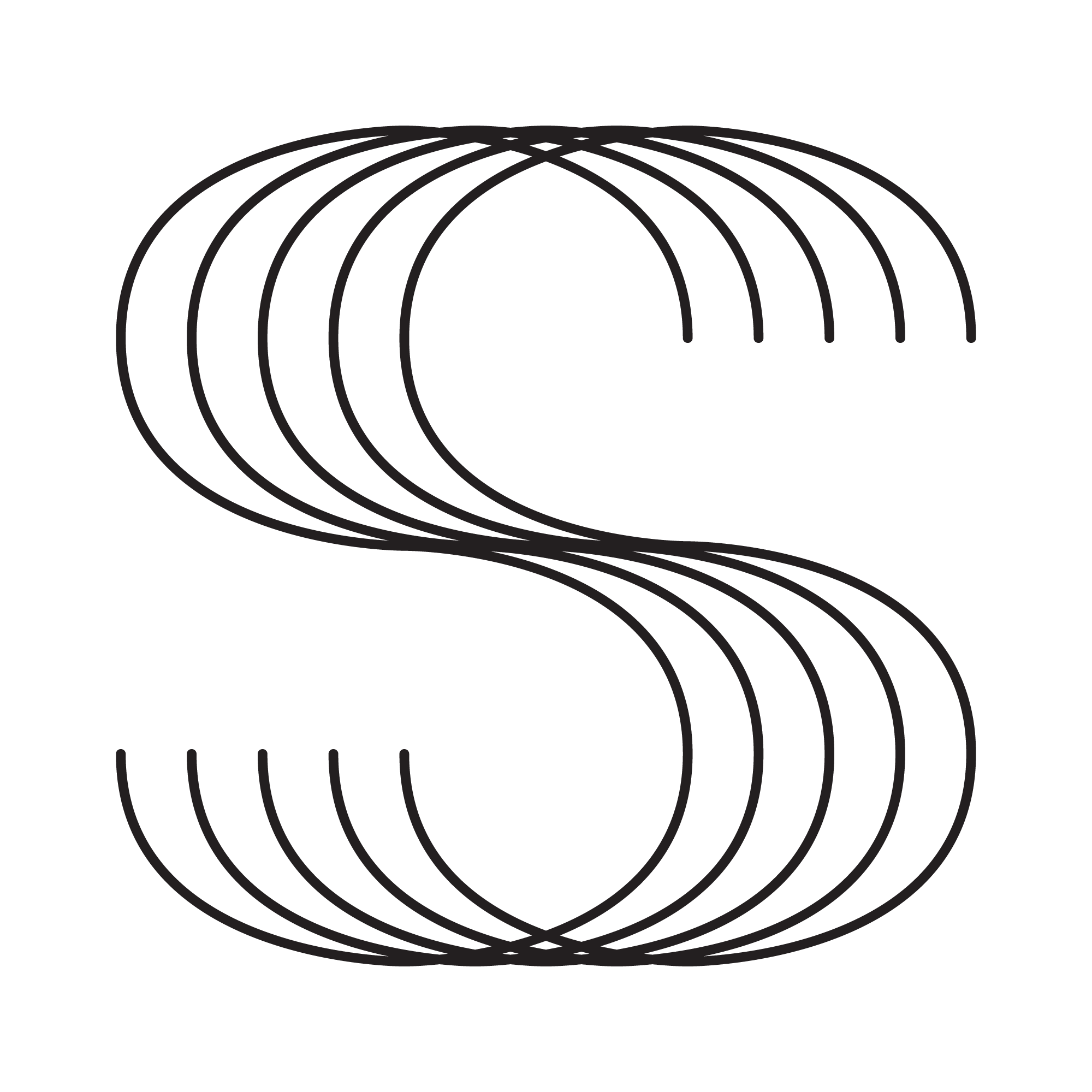
Sixteen for Fedrigoni 365
GA&T’s design for 2021's Fedrigoni 365 book.
Each day has a different design, and our brief was to design a 16 with the inspiration word 'line'.
We layered the same simple letter shape to achieve on optical look - enhanced further with sliding motion. The design could happily be a place for a glass of wine in Soho, and would lend itself to neon lights.
Each day has a different design, and our brief was to design a 16 with the inspiration word 'line'.
We layered the same simple letter shape to achieve on optical look - enhanced further with sliding motion. The design could happily be a place for a glass of wine in Soho, and would lend itself to neon lights.
Sixteen vertical wordmark
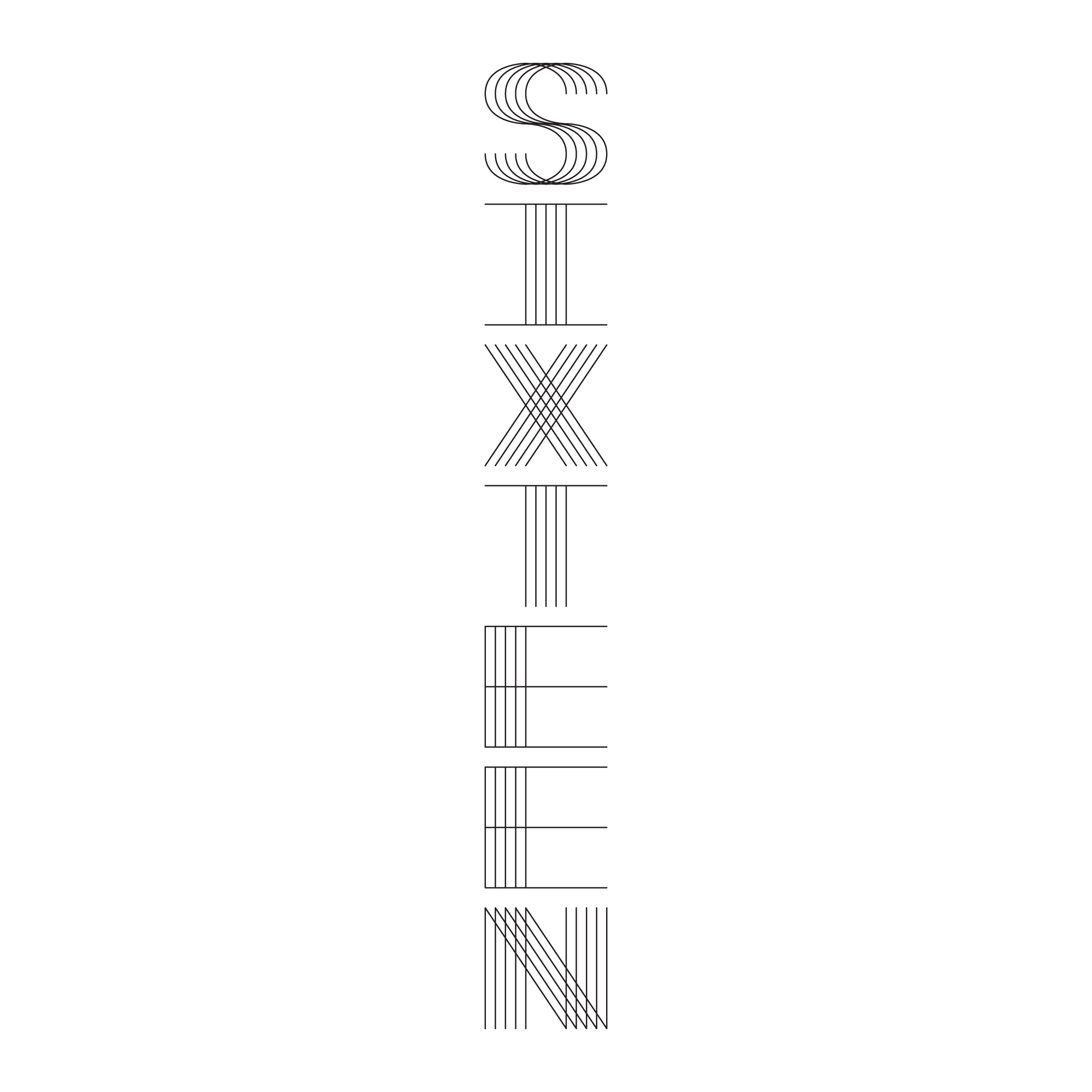
Individual letters
Animated optical letters